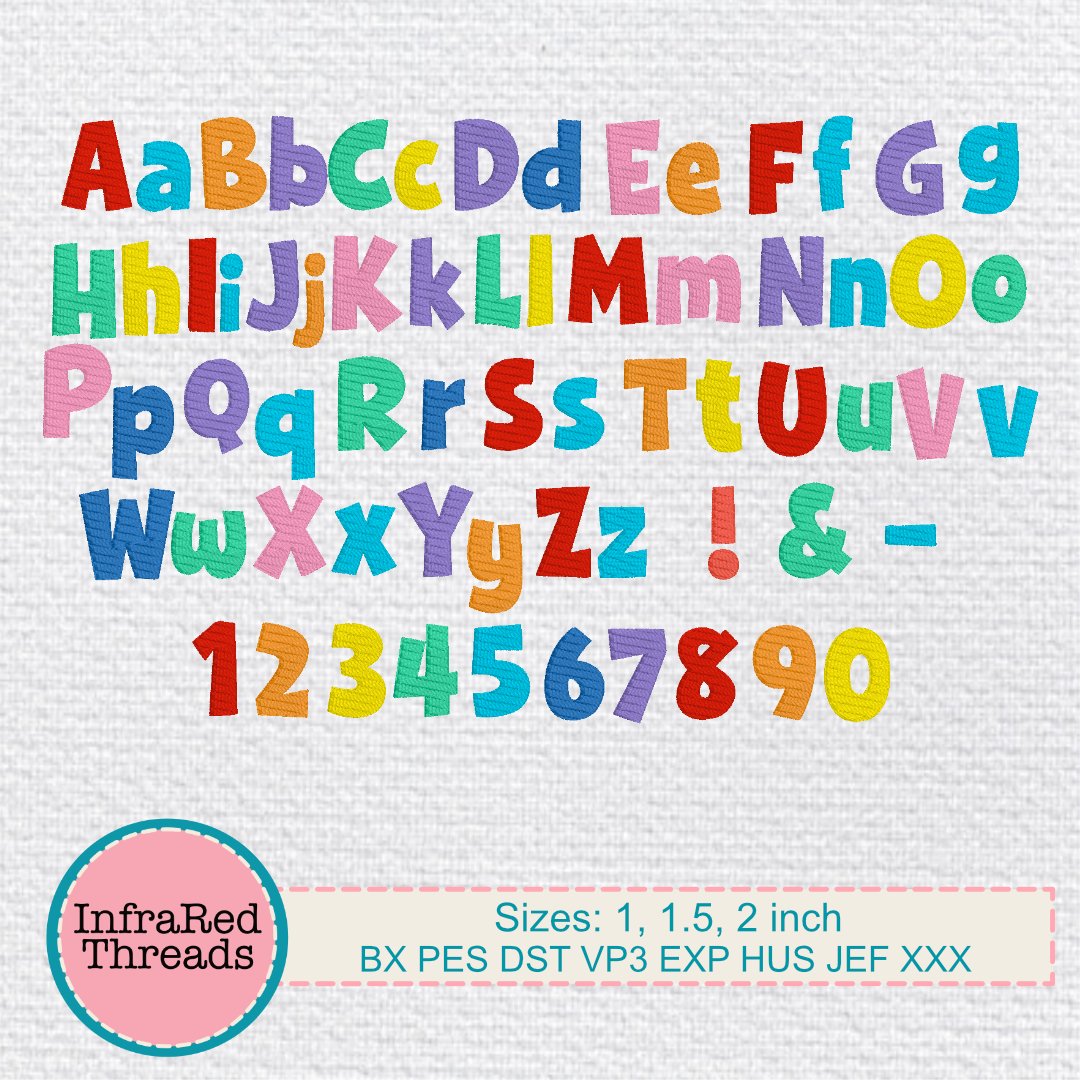
Poppy Embroidery Font – Bold Fill Stitch Letters in 3 Sizes
The Poppy Font is a bold and playful embroidery font stitched in vibrant fill stitch. Its rounded, chunky style makes it perfect for children’s items, birthday banners, classroom projects, and colorful monograms that need to stand out.
Designed for smooth stitching and strong visual impact, the Poppy Font includes uppercase and lowercase letters in three popular sizes. Great for both hobbyists and small business crafters, it brings a joyful pop of color and personality to any embroidery project.